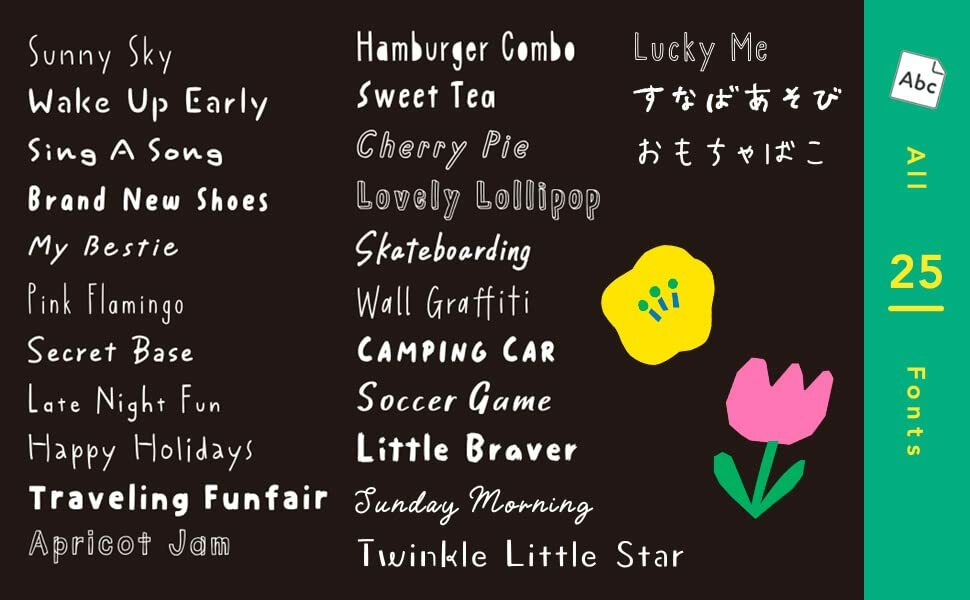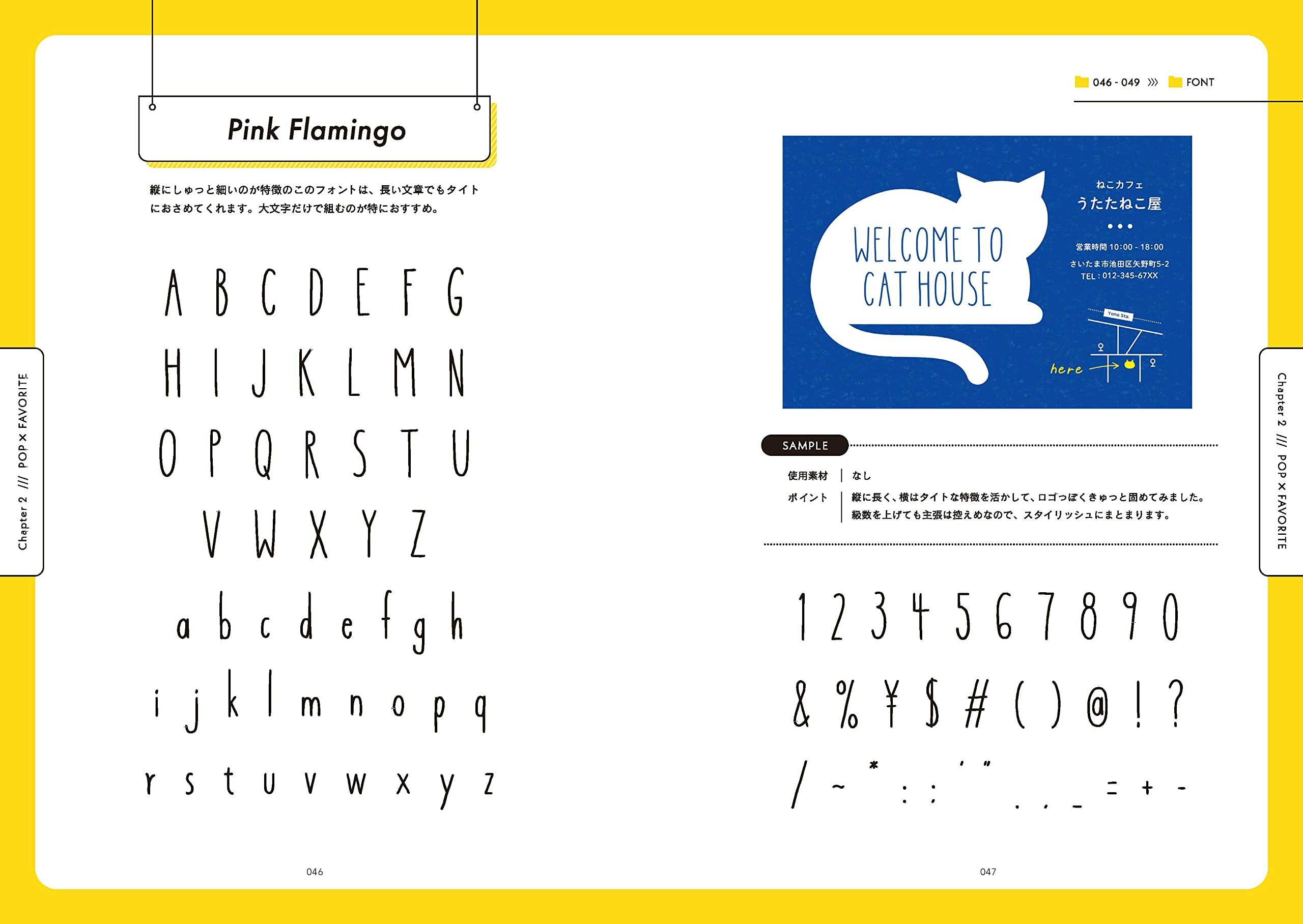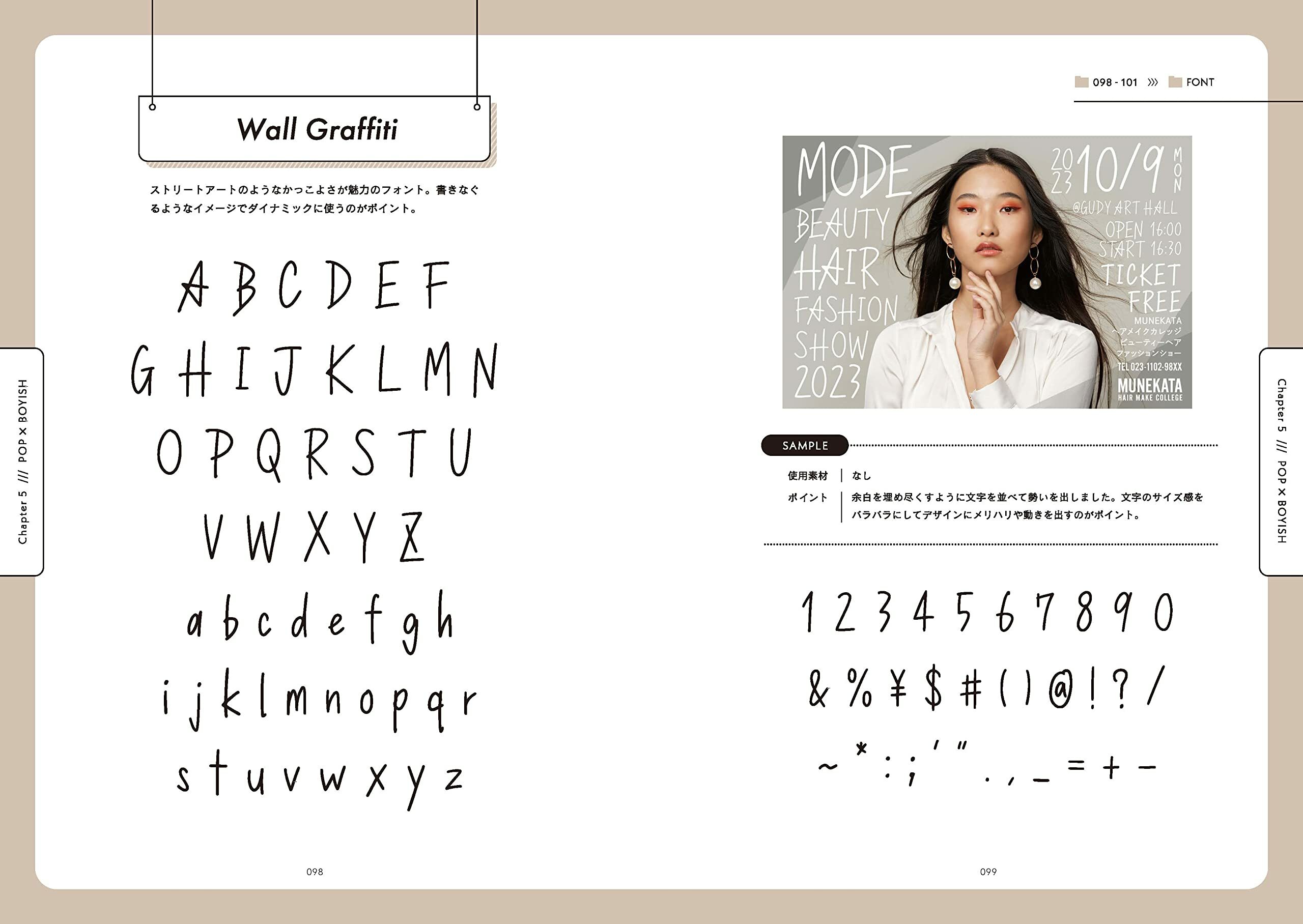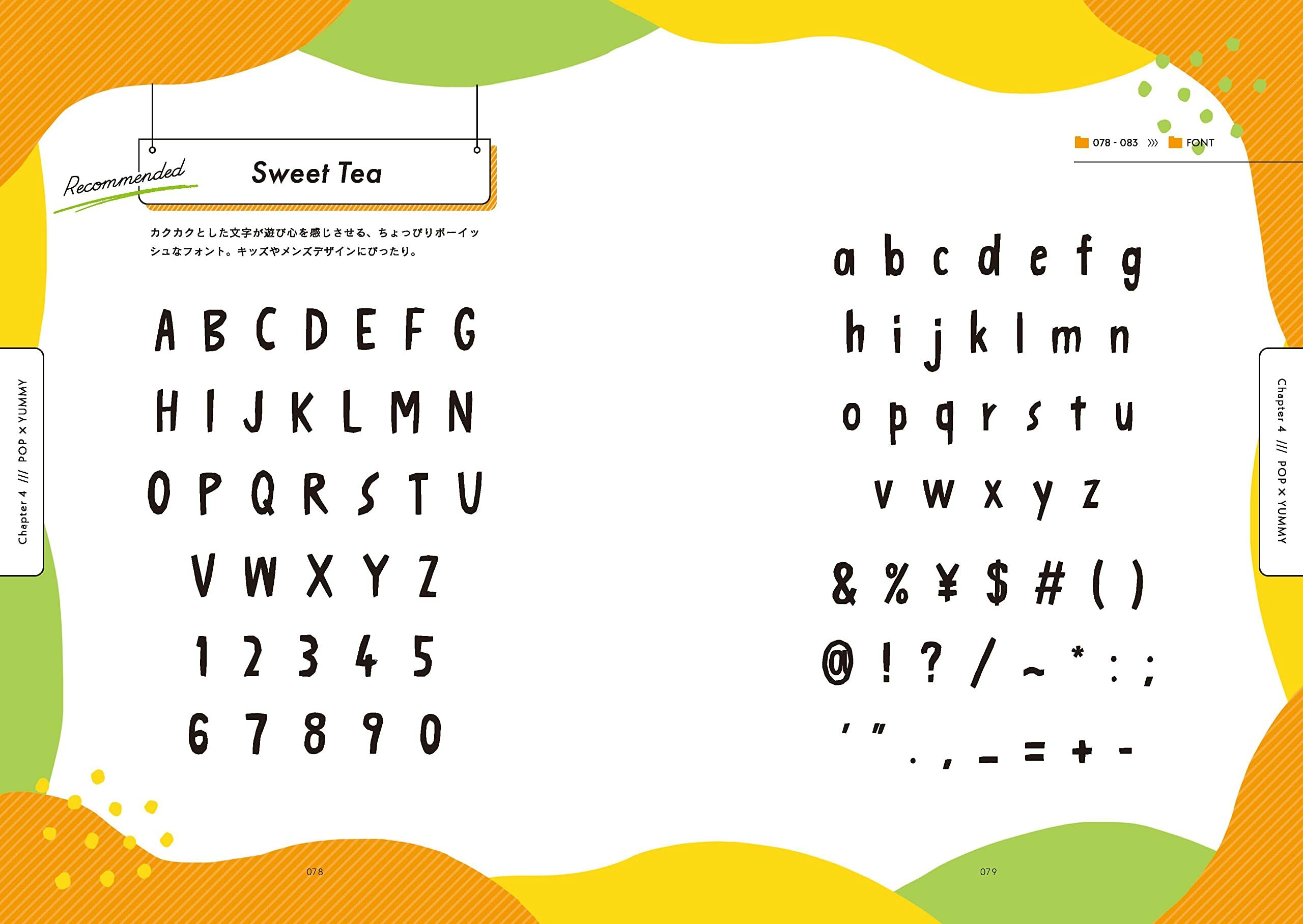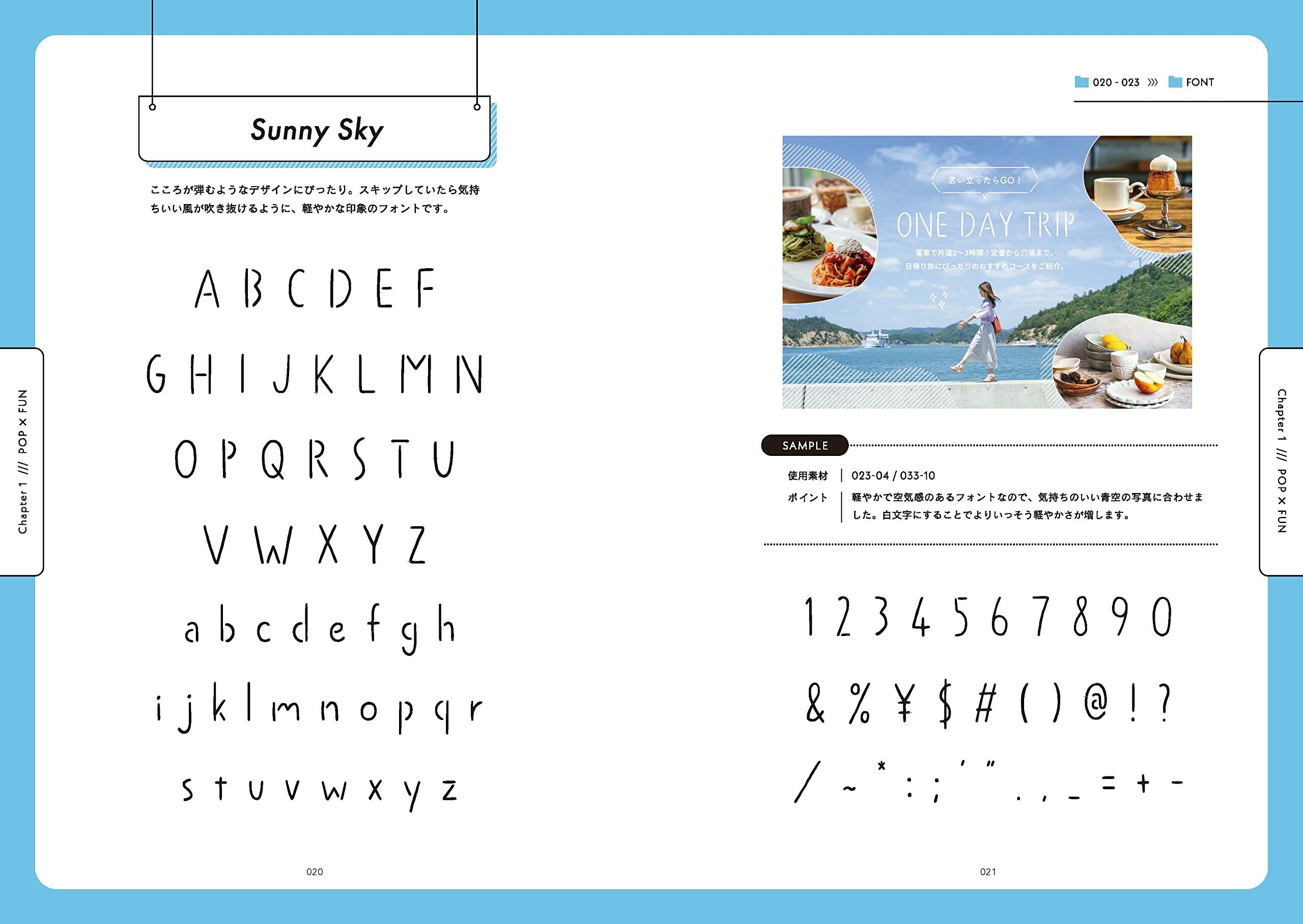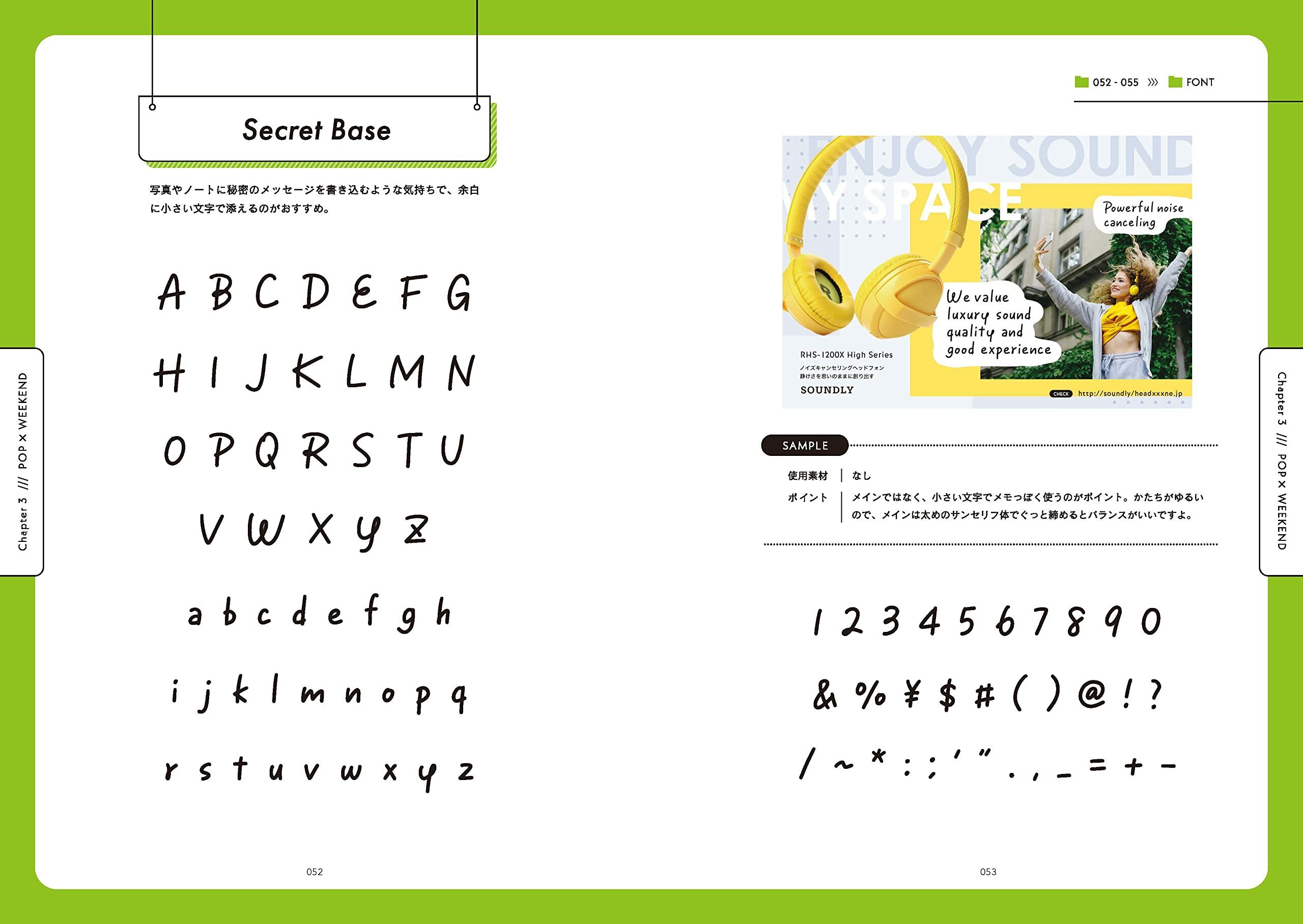
Fashionable lettering font collection Casual x Pop
It's difficult to learn or write hand lettering from scratch, but I want to incorporate it into my designs.
Recommended for you!
All original designs and productions by inectar-e, the author of ``Colors with good taste with only three colors (published by Impress)''!
Simple & casual designs and designs for kids can be made modern and pop.
A total of 25 hand lettering fonts in OTF format, 23 typefaces and 2 hiragana fonts,
A material collection containing about 1,700 decorative parts and illustrations in JPEG and PNG formats that are fashionable when used in conjunction with it.
The theme of this book is "Casual x Pop".
Chapter 1/Casual Pop×FUN
Chapter 2/Casual Pop × FAVORITE
Chapter 3/Casual Pop × WEEKEND
Chapter 4/Casual Pop × YUMMY
Chapter 5/Casual Pop × BOYISH
Chapter 6 / Casual Pop × GIRLY Divided into 6 chapters and introduced for each theme.
Men's magazines with many simple designs, vibrant and colorful children's products,
There are plenty of materials that can be used in popular Scandinavian designs.
With this one book, you can easily create trendy and stylish designs.